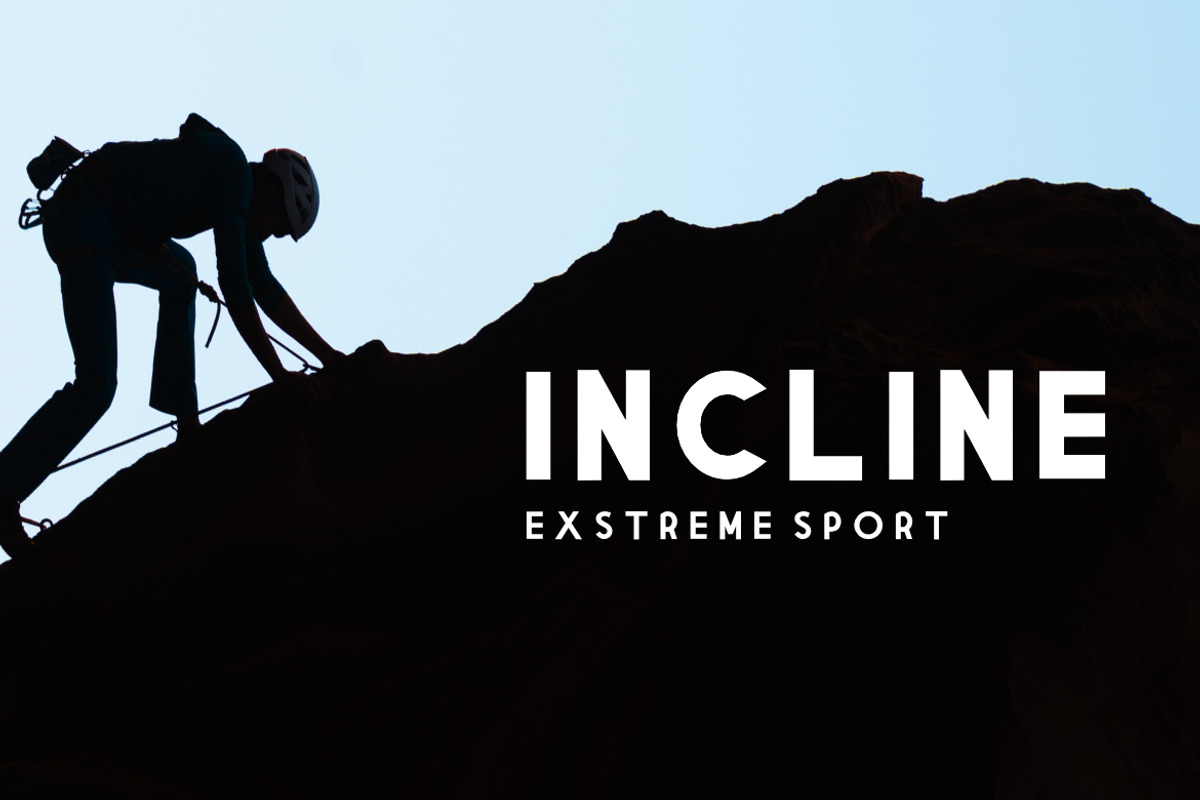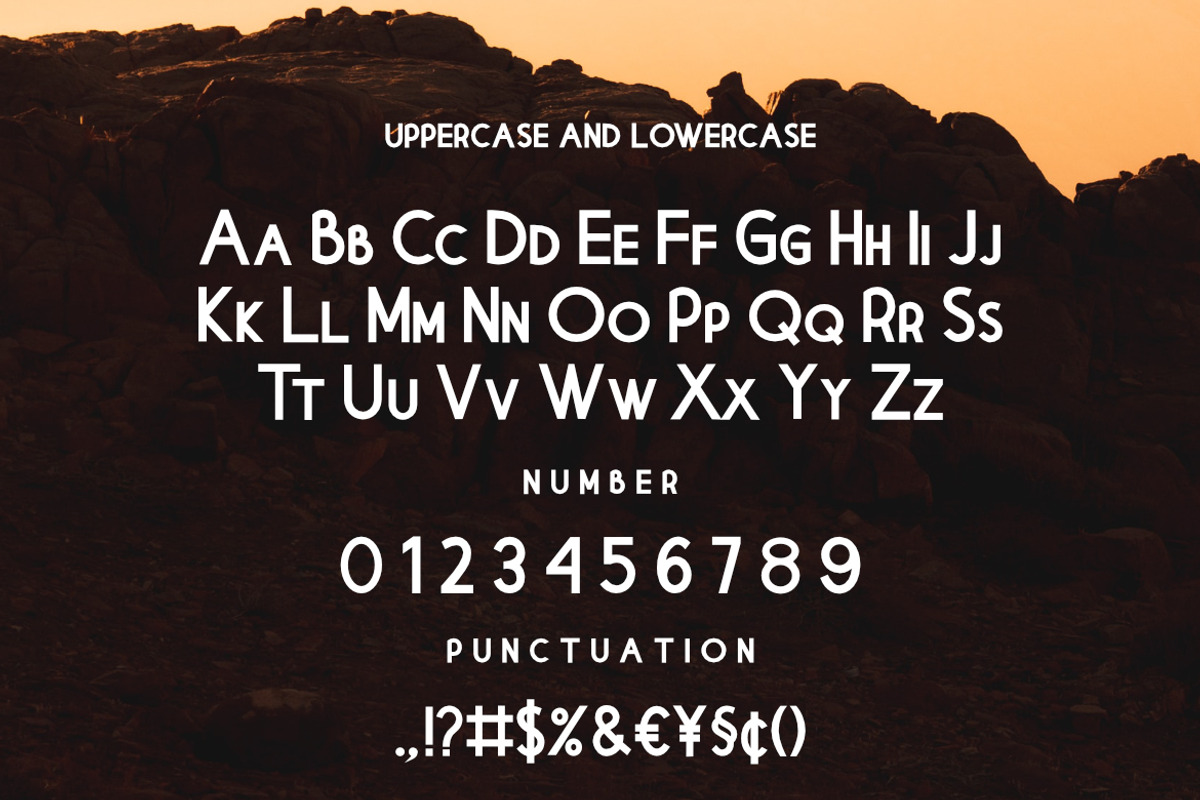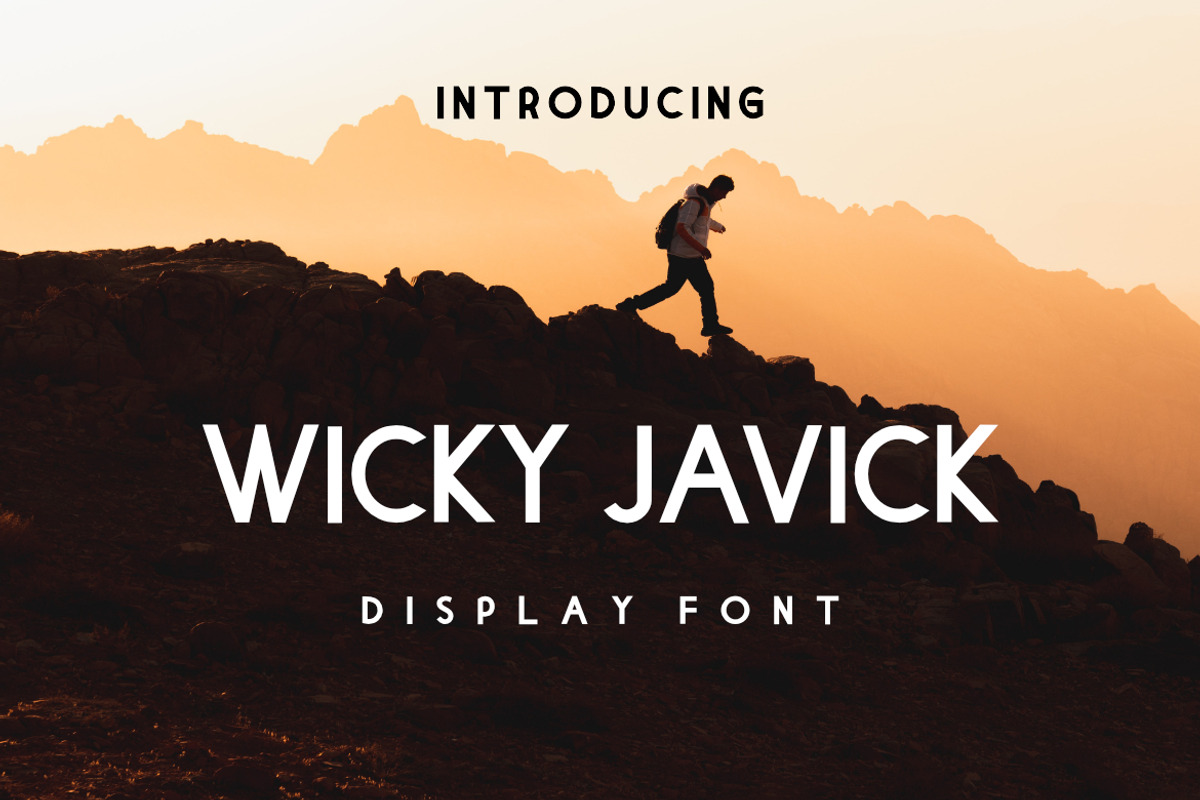
Wicky Javick Sans Serif Font Family
The Wicky Javick sans serif font family, inspired by modern typography. This font is made with a high premium quality level which you can use as flyers, quotes, posters, banners, packaging, merchandise, logotypes and much more.